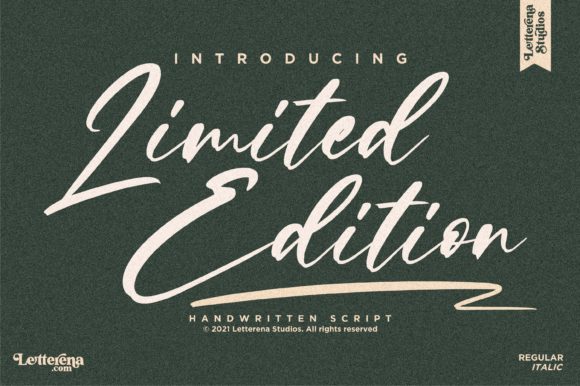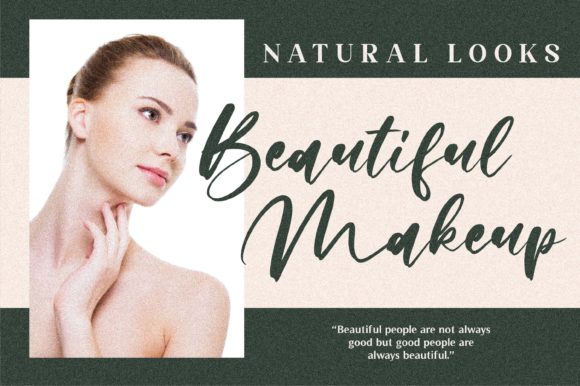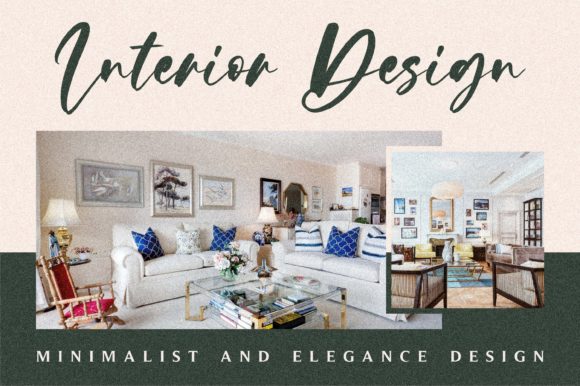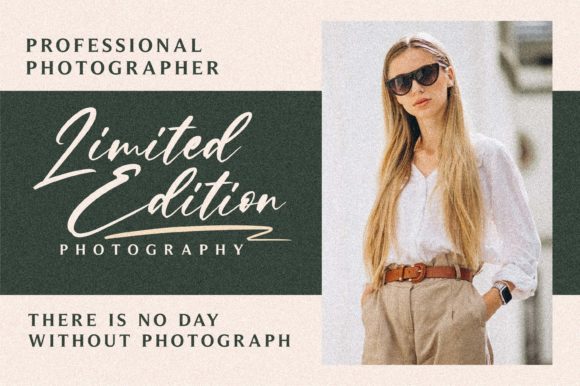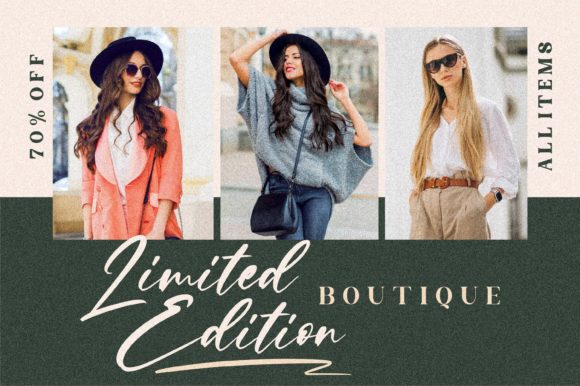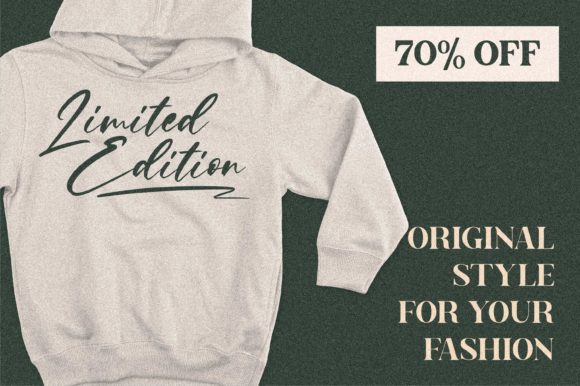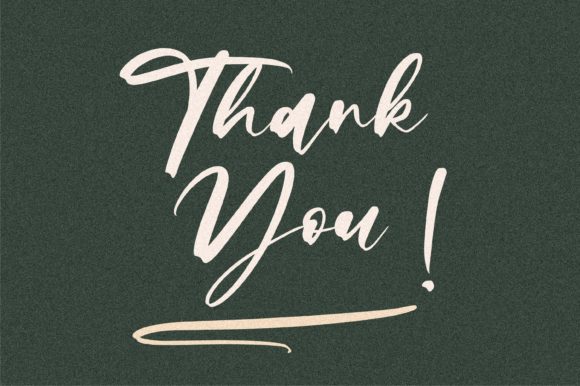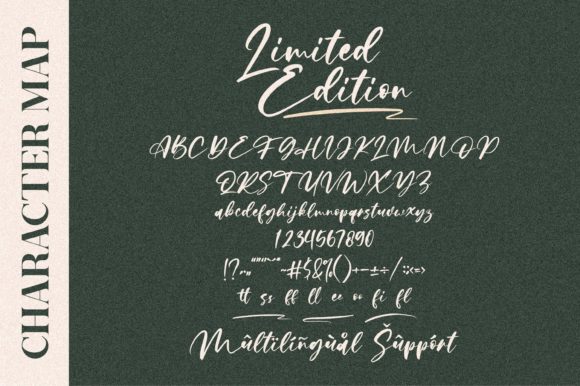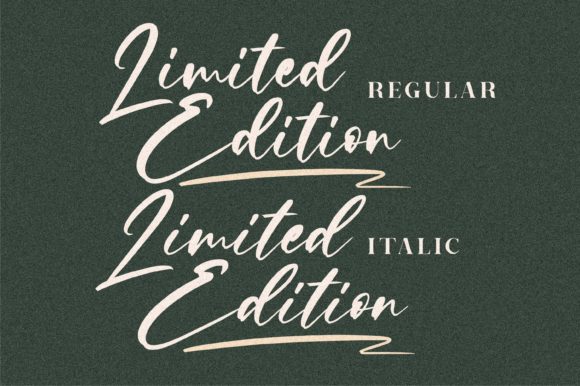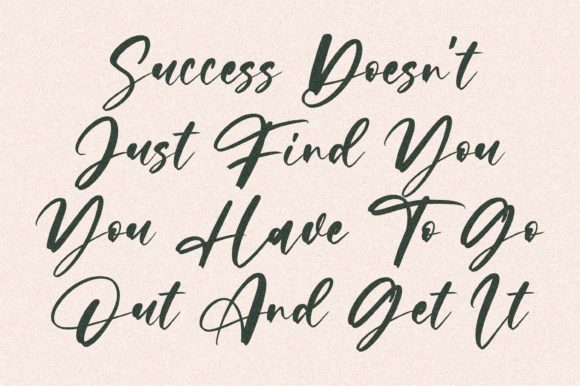
Limited Edition Font
About Limited Edition Font
Limited Edition is a captivating and artistic paint brushed script font that adds a touch of uniqueness and personalization to your designs. With its expressive brush strokes and handcrafted feel, this font brings a charming and organic look to any project.
Limited Edition is particularly well-suited for designs that require a personalized and heartfelt touch. It shines on wedding invitations, where it can convey the romance and individuality of the special day. Thank you cards and greeting cards become more heartfelt and authentic with the hand-painted aesthetic of Limited Edition. Logos and branding materials benefit from the font’s artistic and one-of-a-kind style, making a memorable impression on your audience.
The versatility of Limited Edition allows it to adapt to various design applications. Whether you’re creating invitations, cards, logos, or other visual materials, this font brings a sense of creativity and artistic flair. Its brush strokes and textured appearance evoke a sense of craftsmanship and make your designs stand out.
Limited Edition’s handwritten style adds a personal and intimate feel to your typography. Each letter is carefully crafted with attention to detail, resulting in a font that feels authentic and handmade. Its fluid and organic shapes create a sense of movement and rhythm, adding a dynamic element to your designs.
Incorporating Limited Edition into your projects is a way to create a unique and limited-edition feel. The font’s paint brushed texture and handcrafted aesthetic make it a standout choice for designs that require a personalized and artistic touch.
In summary, Limited Edition is a beautiful paint brushed script font that brings a personalized and artistic style to your designs. It is perfect for wedding invitations, thank you cards, greeting cards, logos, and any project that requires a unique and heartfelt touch. With its handcrafted feel and textured appearance, Limited Edition adds a sense of creativity and individuality to your typography. Choose Limited Edition to create captivating designs that leave a lasting impression.